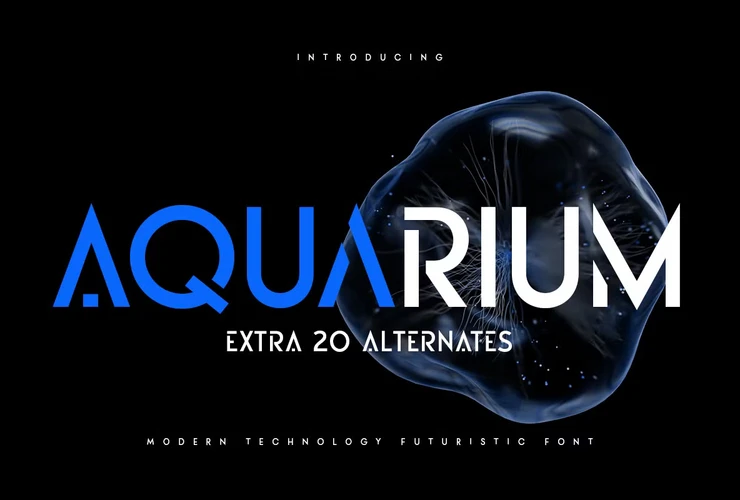
Dive into the Future with Aquarium – A Modern Futuristic Font
Aquarium – Modern Futuristic Font is a sleek and sharp sans-serif display font designed to capture the essence of futuristic and technology-inspired designs. With its geometric structure and cutting-edge style, Aquarium is an ideal choice for a wide range of creative projects, from tech branding and product packaging to logos and social media graphics. Its versatility and high legibility make it a valuable asset for designers aiming to create modern, forward-thinking visuals.
Why Aquarium Stands Out
Aquarium isn’t just another futuristic font; it’s a versatile design tool with unique stylistic alternates and a high level of legibility. Whether you’re working on tech branding, advertising, or even wedding designs that need a modern twist, Aquarium delivers the perfect blend of innovation and style.
Key Features of Aquarium Font:
Futuristic & Modern Design: The font’s sharp, geometric lines make it perfect for projects that need a cutting-edge, tech-savvy look.
Stylistic Alternates: Easily customize and create unique letter variations to enhance your designs with just a few clicks.
Comprehensive Character Set: Includes uppercase A-Z characters, numerals, punctuation, and accented characters for Western European languages.
Versatile Applications:
The Aquarium font is ideal for a wide array of creative projects, including:
Technology Branding: Perfect for logos and branding that emphasize innovation and futuristic themes.
Social Media & Advertising: Make your posts and ads stand out with sharp, modern typography.
Product Packaging & Labels: Enhance your packaging designs with a font that speaks of sophistication and modernism.
Creative Stationery & Wedding Designs: Add a unique twist to traditional design projects by incorporating a modern, futuristic feel.
Conclusion:
Aquarium Modern Futuristic Font is more than just a display typeface; it’s a comprehensive design tool for anyone looking to create bold, innovative designs. Its sharp, clean lines, combined with versatile features and stylistic alternates, make it a must-have for creatives seeking to elevate their work.